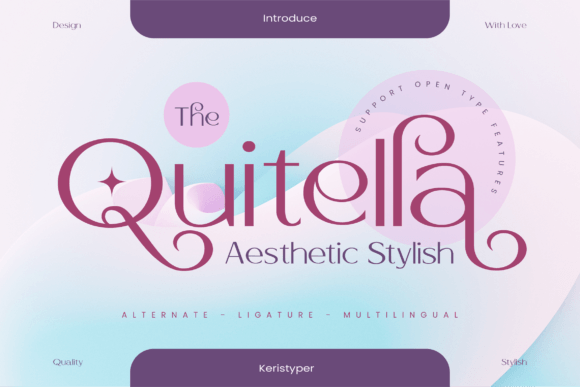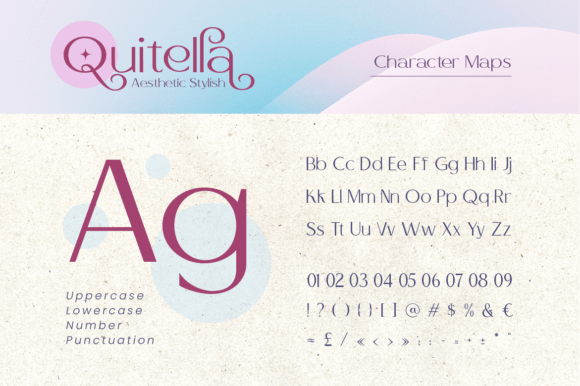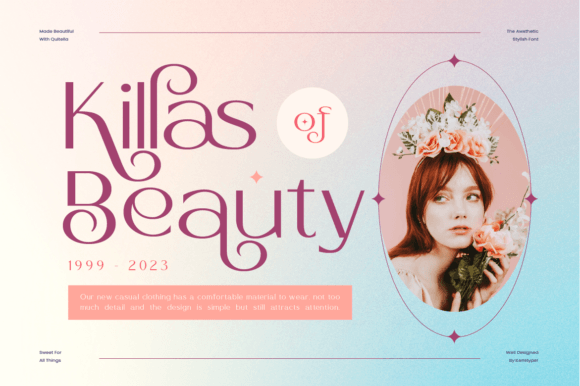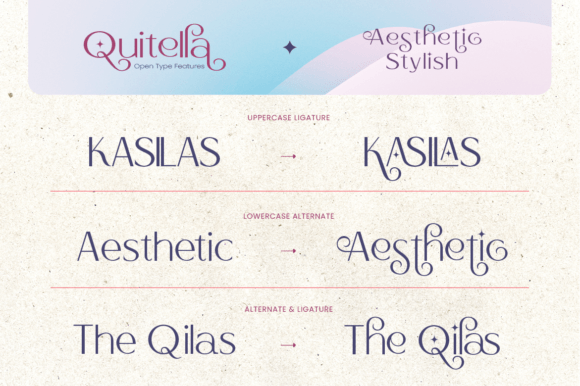
Quitella Font
About the Quitella Font
We are excited to introduce Quitella Font, a must-have typeface for any serious designer. Quitellafont is a perfect blend of aesthetic and style, designed to add a touch of elegance to any project. Whether used for branding, invitations, packaging, or any other creative endeavor, this font will elevate your work to new levels of visual appeal.
Quitella’s elegant serif design excels in headlines, logos, and short-form text applications such as invitations or packaging where its refined aesthetic shines. Avoid using it for large blocks of body text; its high contrast and intricate details can hinder readability in long paragraphs or UI elements.
Its sophisticated personality makes it ideal for brands projecting luxury, sophistication, or timeless quality – think high-end fashion, jewelry, or premium food products. Consider pairing Quitella with a clean sans-serif like Lato for body copy or a playful script font like Great Vibes for added contrast and visual interest, depending on the desired overall mood.
For a more modern feel, a geometric sans-serif like Montserrat would provide a balanced contrast, while a neutral serif like Playfair Display could create a classic, harmonious pairing. The key is to select a contrasting yet complementary typeface to enhance Quitella’s inherent elegance.
Quitella Font Usage Examples
Quitella Font Example